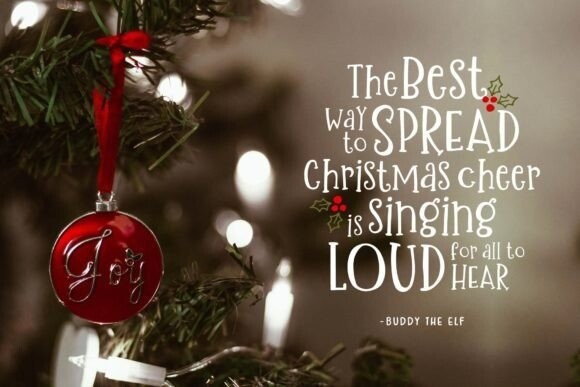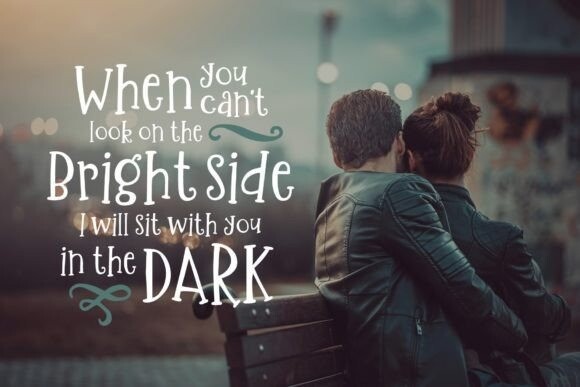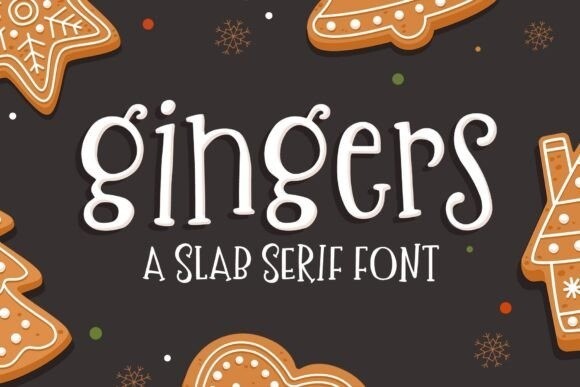
Gingers Font
Designer: Denise Chandler
Gingers Font is a sweet and curly slab serif font. It is perfect for the holiday season or any time of the year when you need to add a little whimsy and charm. Looks great in large sizes as well as is very readable in smaller sizes.